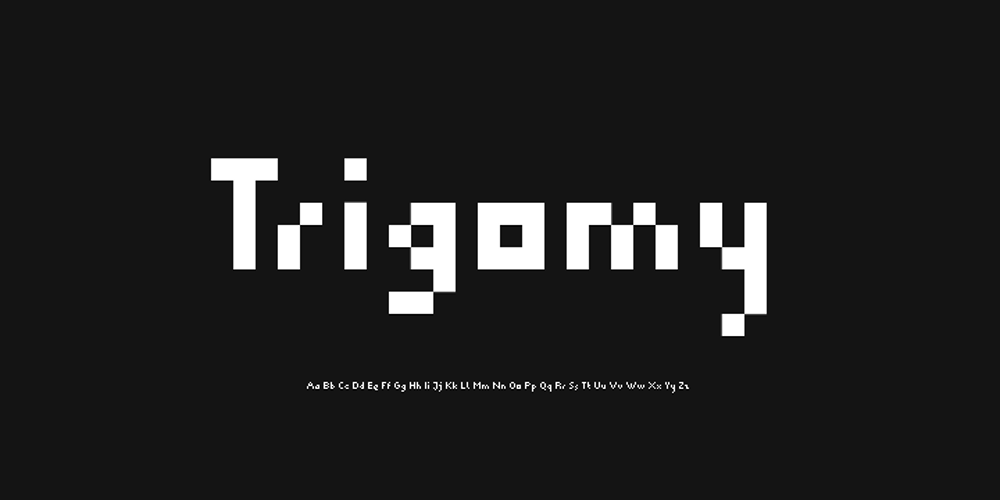
Trigomy Font Family was designed by Markus Reiter and published by Markus Reiter. Trigomy contains 2 styles and family package options. Trigomy is a proportional pixel font designed on a 5 pixel grid. It is intended for either very small text or as huge display font for posters and the like. To get a crisp look this font should be used at 10 pt or multiples of 10 pt. (A tip for Adobe Creative Suite applications is to change the standard anti-aliasing method from “sharp” to “crisp” and to align the text to whole pixels. Also avoid centered text.) To get started with type design I thought it was best to start with a pixel font because you don’t have to focus much on the design itself, but rather have to focus on how kerning and spacing works and the various features you can implement with OpenType. And of course I wanted to have a pixel font that had all that I was missing from other pixel fonts. We were learning trigonometry at the time I started designing Trigomy, and most of the time I misspoke it “trigometry”. So, when I had to come up with a name for my first font I thought: “Why not go with Trigomy?”